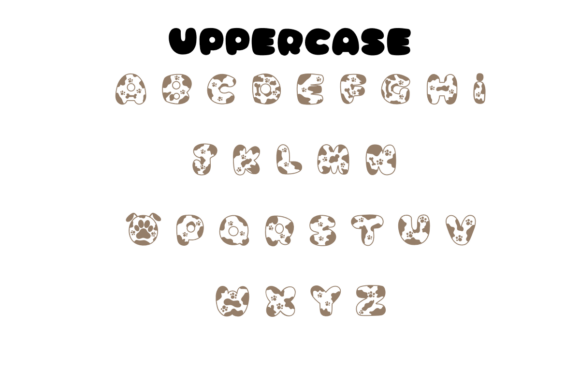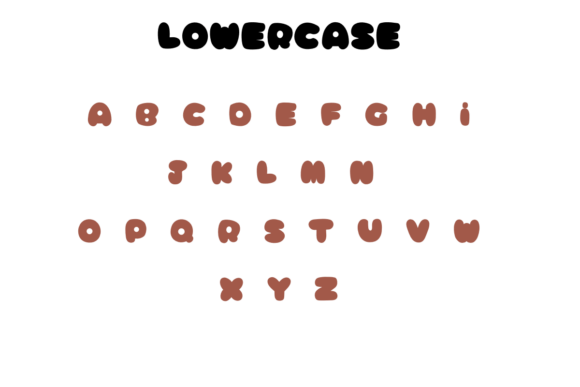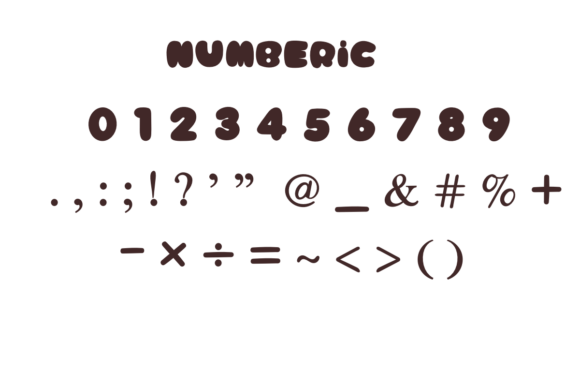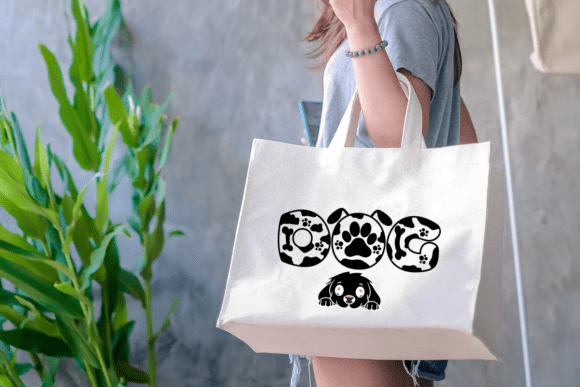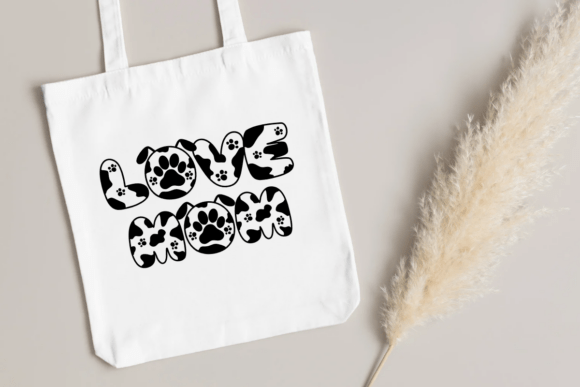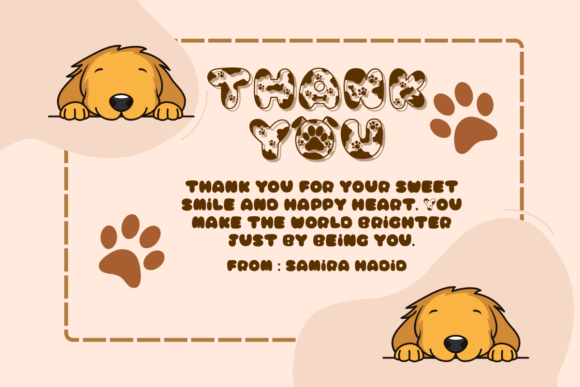
Introducing the Dog Mom Font: A Decorative Delight for Crafty Designs
Are you a dog lover and a crafty person who enjoys making personalized items for yourself or as gifts? Look no further than the Dog Mom Font, a decorative font that’s perfect for a variety of creative projects. In this article, we’ll explore the features and uses of this charming font, and how it can add a personal touch to your designs.
What is the Dog Mom Font?
The Dog Mom Font is a decorative font designed specifically for crafty people who love dogs. It’s a unique and playful font that’s perfect for adding a personal touch to your designs. The font is available for use on various platforms, including digital and print materials.
Uses of the Dog Mom Font
The Dog Mom Font is a versatile font that can be used for a variety of creative projects, including:
- Note-taking and journaling: Add a personal touch to your notes and diary entries with this charming font.
- Greeting cards: Create customized greeting cards for dog lovers and friends.
- Banners and signs: Use the Dog Mom Font to create eye-catching banners and signs for dog-themed events or parties.
- Social media posts: Add a decorative touch to your social media posts, especially those featuring your furry friends.
- Mugs and water bottles: Create customized mugs and water bottles with cute dog-themed designs.
- T-shirts and apparel: Design unique and playful t-shirts, hoodies, and other apparel items for dog lovers.
- Stationery and paper crafts: Use the Dog Mom Font to create customized stationery, stickers, and other paper crafts.
Features of the Dog Mom Font
The Dog Mom Font has several features that make it a great choice for crafty designers:
- Playful and decorative: The font has a playful and decorative style that’s perfect for dog-themed designs.
- Easily readable: Despite its decorative style, the font is easily readable, making it perfect for use in various designs.
- Versatile: The Dog Mom Font can be used for a variety of creative projects, from digital designs to print materials.
Tips for Using the Dog Mom Font
Here are some tips for using the Dog Mom Font in your designs:
- Pair with other fonts: Experiment with pairing the Dog Mom Font with other fonts to create unique and interesting designs.
- Use in combination with images: Use the font in combination with dog-themed images or illustrations to create visually appealing designs.
- Experiment with colors: Try out different colors and color combinations to add a pop of color to your designs.
The Dog Mom Font is a decorative font that’s perfect for crafty designers who love dogs. With its playful and decorative style, it’s ideal for a variety of creative projects, from note-taking and journaling to designing greeting cards, banners, and social media posts. Whether you’re a dog mom or just a dog lover, this font is sure to add a personal touch to your designs.
Get Creative with the Dog Mom Font!